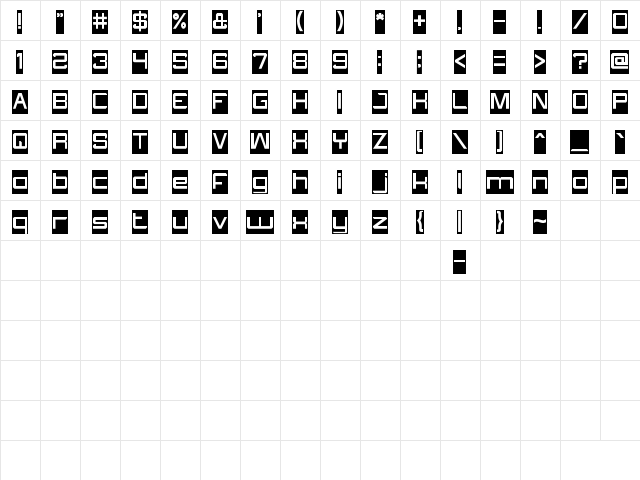
What The FUN-Inverse Normal Font Preview
What The FUN-Inverse Normal
What The FUN-Inverse Normal Font Details
Design Context for What The FUN-Inverse Typeface
What The FUN-Inverse trades formality for fun, with bouncy, characterful letterforms that bring warmth and energy to any project.
Font Pairing: Pairs well with a rounded or humanist sans for body copy, maintaining the friendly tone without relying on What The FUN-Inverse to carry extended reading.
Pro Tip: Avoid using What The FUN-Inverse for long passages of text — it works best for headlines, labels, and short calls to action.